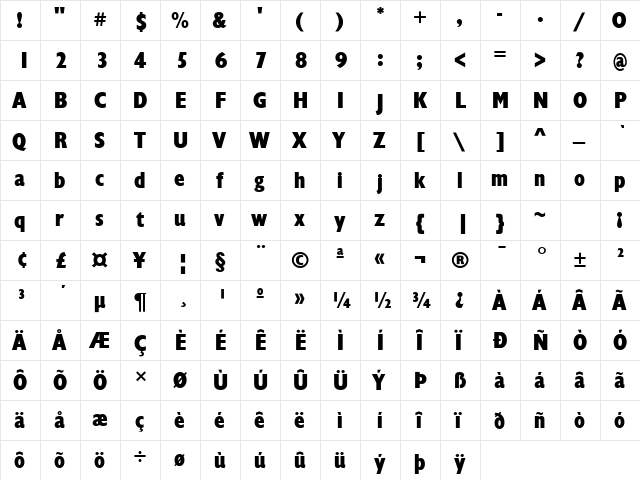
Garrison Cond. Sans BOLD
Design Context for Garrison Cond. Sans Typeface
Garrison Cond. Sans offers clean, dependable letterforms without strong stylistic allegiance, making it a practical choice for designers who need flexibility. The heavy weight commands attention and anchors typographic hierarchies. Its narrow stance lets it pack a punch even in space-constrained designs.